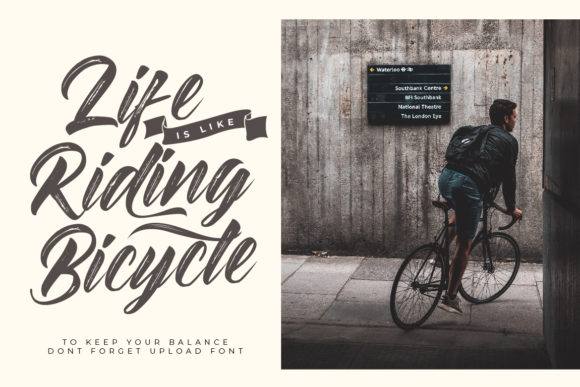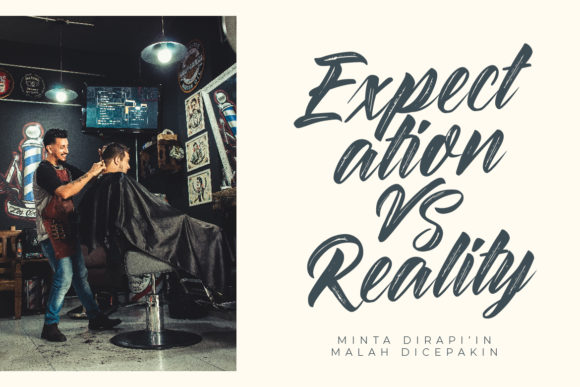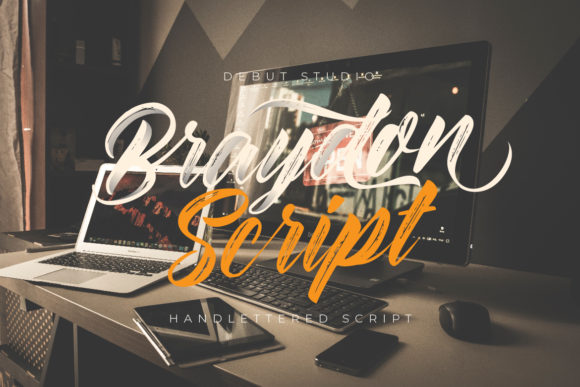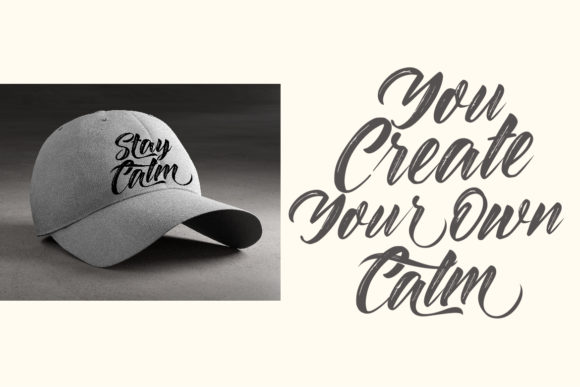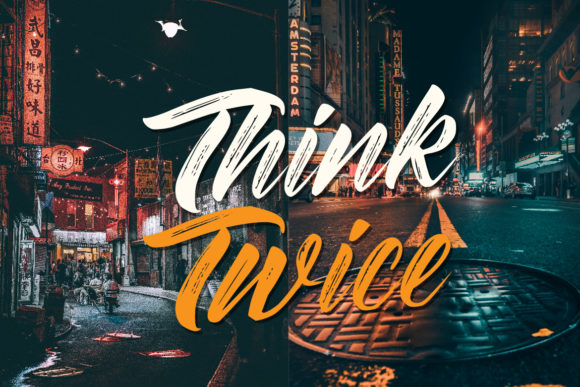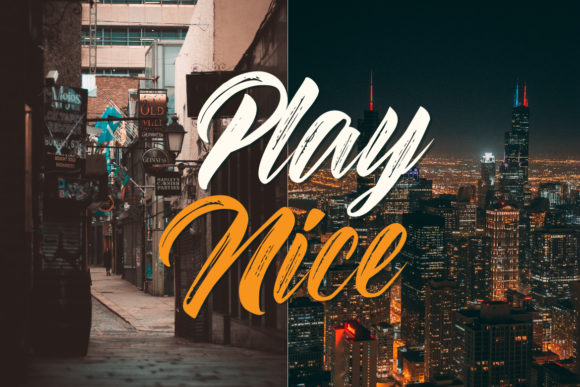
Introduction to Braydon Font
As a designer, you’ve probably had that moment where you’re brainstorming ideas for a project and the perfect font just clicks. It’s like the whole design comes together in a beautiful, cohesive way. For many of us, that perfect font is the Braydon Font. This sophisticated script font is a game-changer for any creative project, from logos to social media posts, quotes to posters.
What makes the Braydon Font so valuable is its versatility and high quality. With a transparent background, it’s easy to integrate into any design resource, whether you’re working on a free download or a commercial project. Its elegant, cursive style adds a touch of sophistication to any design, making it a must-have for designers looking to elevate their work.
Key Features of Braydon Font
- Features a unique, modern design with a wide range of applications
- Suitable for various design projects, including logos, graphics, and typography
Honest Review: Braydon Font
I recently came across the Braydon Font while searching for a design resource to use in my latest creative project. I was immediately drawn to its high-quality, clean design.
What works well: ✨ The Braydon Font has a transparent background, making it easy to place over any image or design element. The font also comes in a variety of weights and styles, giving me plenty of options to choose from. I found it to be a great addition to my design, and it really helped to elevate the overall look and feel.
Overall, I was impressed with the Braydon Font and would definitely recommend it to other designers looking for a high-quality, creative font to use in their projects. It’s a great design resource to have in your toolkit.
- Available in multiple weights and styles
Braydon Font: A High-Quality Design Resource
The Braydon Font is ideal for use in creative projects, such as graphic design, web design, and digital marketing. Its high-quality design and transparent background make it a versatile font that can be used in a variety of contexts.
To get the most out of the Braydon Font, use it in combination with other high-quality design resources, such as graphics and images. Experiment with different font sizes and styles to create a visually appealing design.